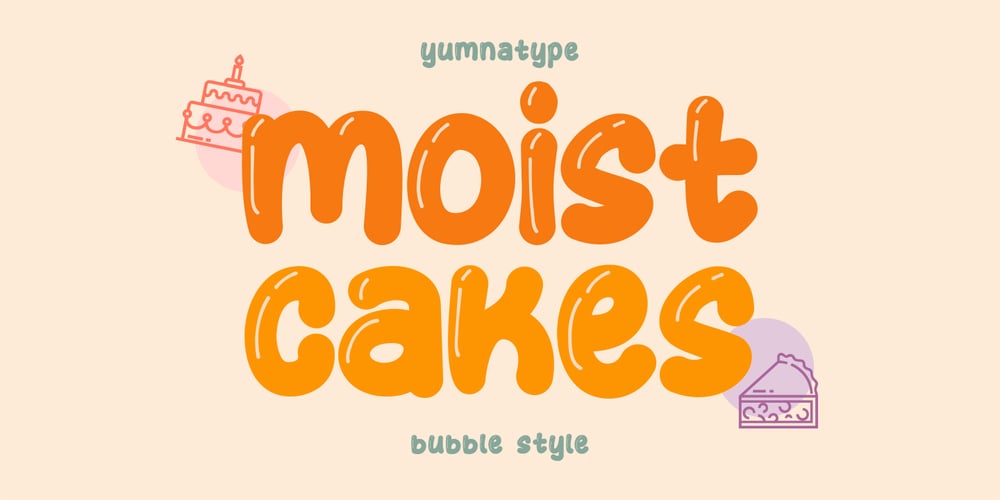
Moist Cakes Font Family was designed by Donis Miftahudin and published by Yumna Type. Moist Cakes contains 2 styles and family package options. Moist Cakes is a unique and playful display font that brings a touch of whimsy and charm to your designs. Crafted with a bubble style as the regular style and an additional solid style, this font exudes a sense of fun and creativity, perfect for projects that demand a bold and eye-catching typographic statement.Each letter in Moist is meticulously designed with rounded shapes that give it a soft appearance, reminiscent of bubbles floating in the air. The overall weight of the font is very thick, adding to its bold and vibrant presence. In addition, enjoy the features here.Features: Multilingual Supports PUA Encoded Numerals and Punctuations Moist Cakes fits in headlines, logos, posters, flyers, branding materials, print media, editorial layouts, and many more designs. Find out more ways to use this font by taking a look at the font preview.Thanks for purchasing our fonts. Hopefully, you have a great time using our font. Feel free to contact us anytime for further information or when you have trouble with the font. Thanks a lot and happy designing.